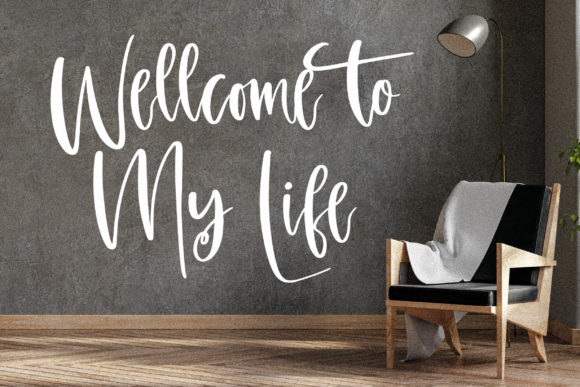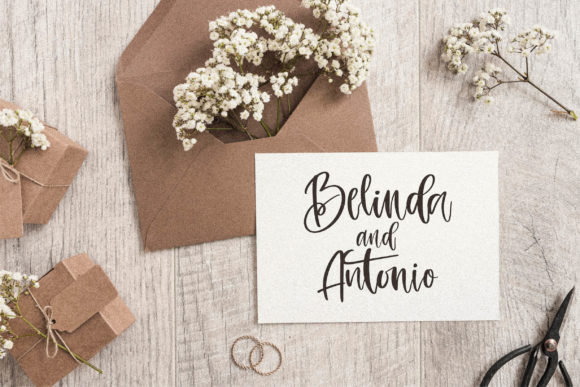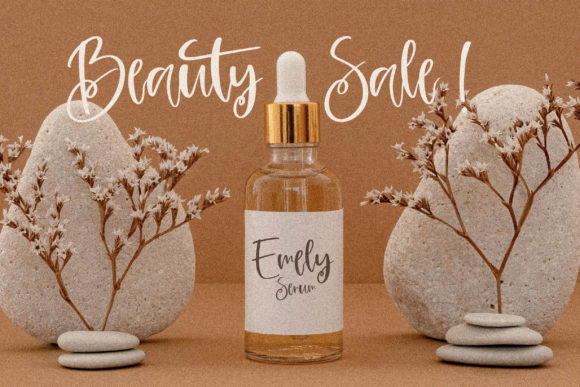
Discover the Whimsy of Amsterdam Listing Font
Have you ever found yourself lost in a sea of pixels, searching for the perfect font to bring your design to life? I know I have. It’s that moment when everything falls into place, and you finally see the vision you’ve been striving for – it’s pure magic. And for designers, that moment is just a font away.
Enter the Amsterdam Listing Font, a charming script font that embodies a carefree spirit. With its lovely style, this font is perfect for adding a touch of personality to any project, whether it’s a blog post, a social media graphic, or a marketing campaign. The Amsterdam Listing Font has the potential to elevate any creation, making it a valuable asset to any designer’s library.
Whether you’re a seasoned pro or just starting out, the Amsterdam Listing Font is sure to bring a smile to your face and inspire your creativity.
Amsterdam Listing Font Key Features
- Font Family: Amsterdam Listing Font is a custom-designed font family with a unique, modern aesthetic.
- Size: Amsterdam Listing Font comes in multiple weights, ranging from Light to Bold, with varying line widths and x-heights.
- Unique Characteristics: The font features a distinctive, rounded design with subtle flair on the terminals, giving it a friendly and approachable feel.
Amsterdam Listing Font Review
As a designer, I was excited to try out the Amsterdam Listing Font, and here’s my honest review.
Unique Character**: The Amsterdam Listing Font has a distinctive, hand-drawn feel that sets it apart from other fonts. Its quirky character makes it perfect for projects that need a touch of whimsy.
Readability**: Despite its playful nature, the font is surprisingly easy to read, even at smaller sizes. This makes it suitable for body text, captions, or any other situation where readability is crucial.
Comprehensive Character Set**: The font includes a wide range of characters, including accents, punctuation, and symbols, making it a great choice for international projects.
Lack of Consistency**: Some letters and symbols feel inconsistent in terms of design and weight, which can be jarring to the eye.
Not Ideal for Headlines**: Due to its irregular shape and lack of boldness, the font may not be the best choice for headlines or titles.
The Amsterdam Listing Font is a creative, attention-grabbing choice that’s perfect for projects that need a unique touch. While it has its limitations, it’s a great option for designers who want to add some personality to their work.
The Amsterdam Listing Font is commonly used for:
- Restaurant and cafe menus
- Product listings and catalogs
- Travel and tourism materials
- Event and festival promotions
These use cases showcase the font’s versatility and ability to add a touch of elegance and sophistication to any design.
- Support for ligatures, swashes, and stylistic sets.